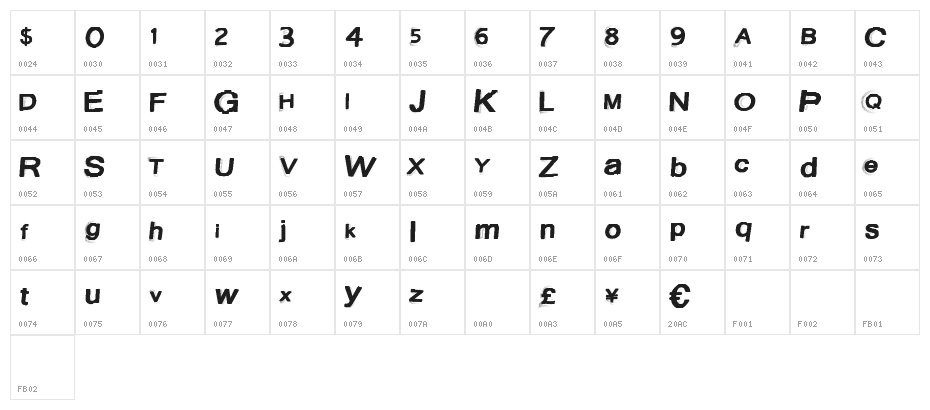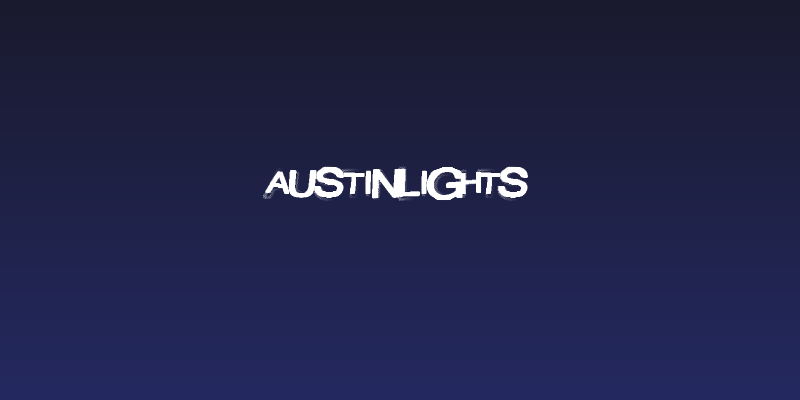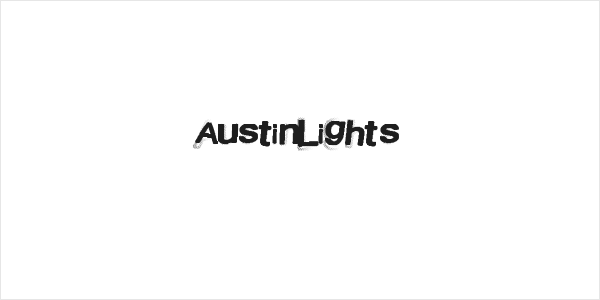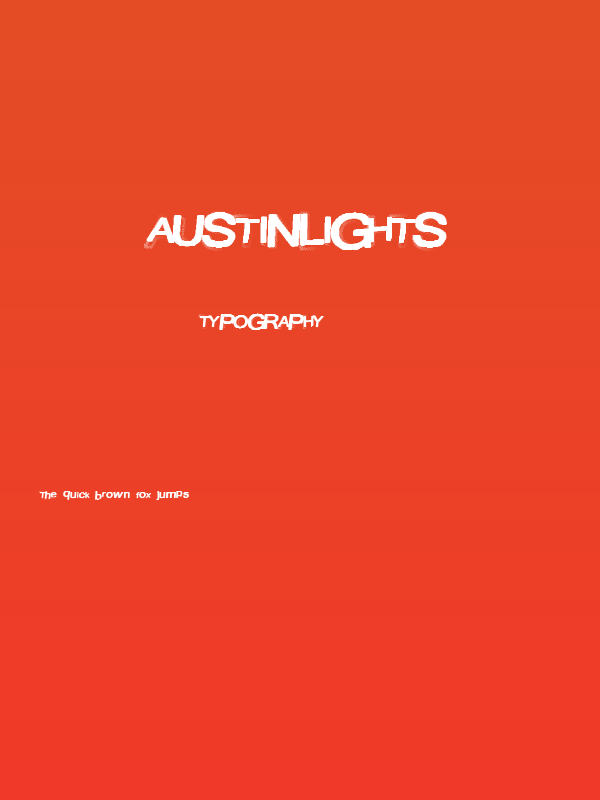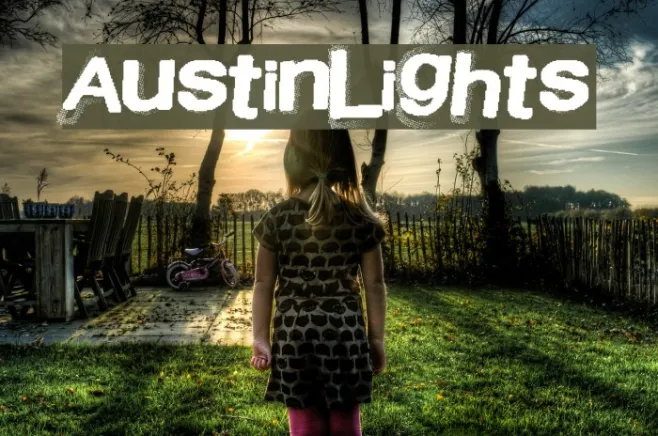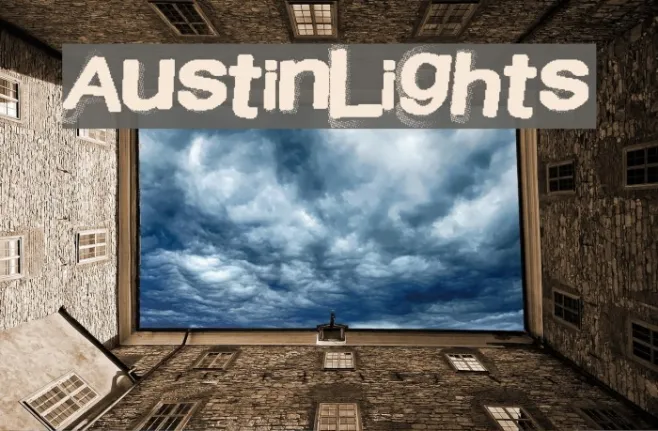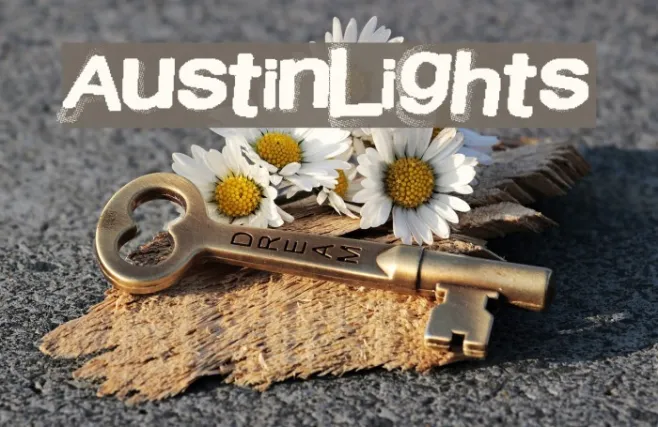
AustinLights Font
AustinLights Description
This font features a playful and bold style with a unique, slightly distorted appearance. The characters have a hand-drawn quality, giving them a casual and informal feel. The uppercase and lowercase letters maintain a consistent weight, while the numbers and special characters follow the same design ethos. The font's quirky and artistic nature makes it stand out, with each letter exhibiting a slightly uneven stroke that adds to its charm. The overall design is eye-catching and suitable for creative projects that require a touch of individuality and flair.
| Overall Style | Playful, Artistic |
| Use Case | Headlines, Posters, Branding |
| Proposed Projects | Ideal for children's books, creative posters, artistic branding, and playful social media graphics. |